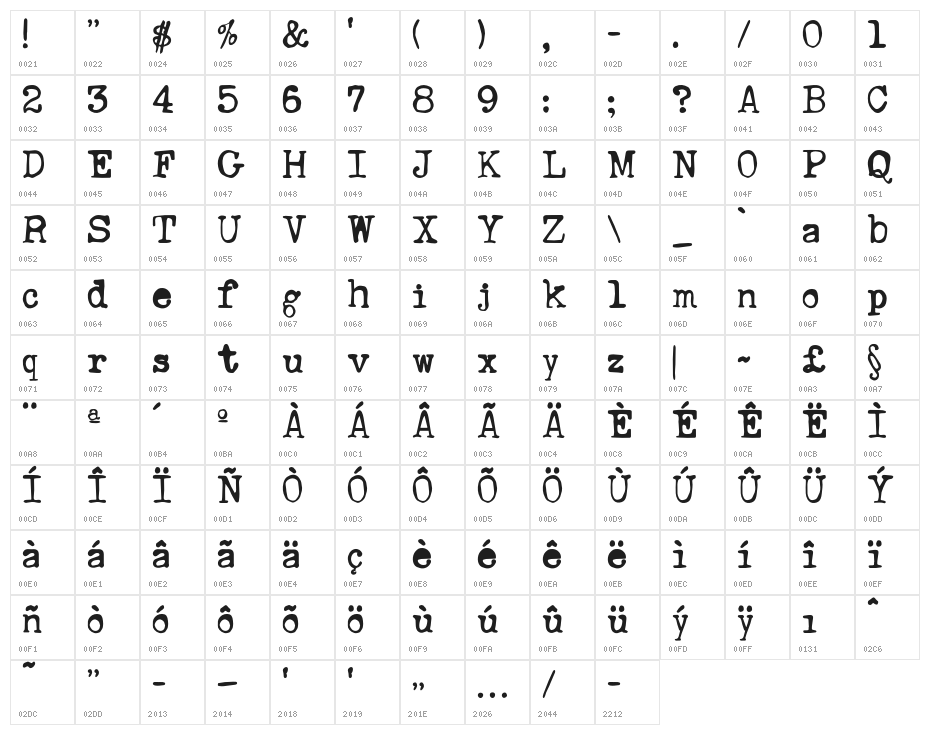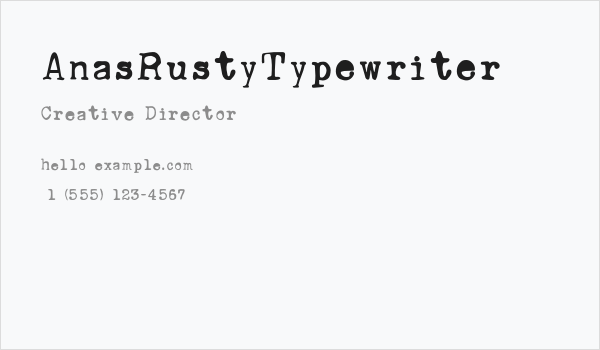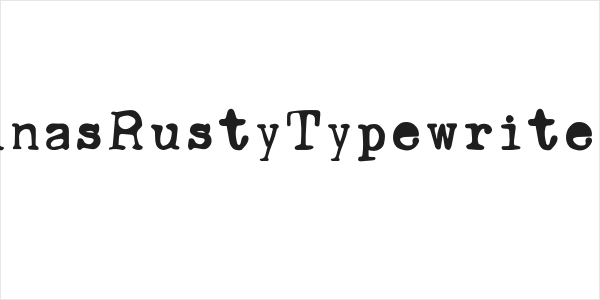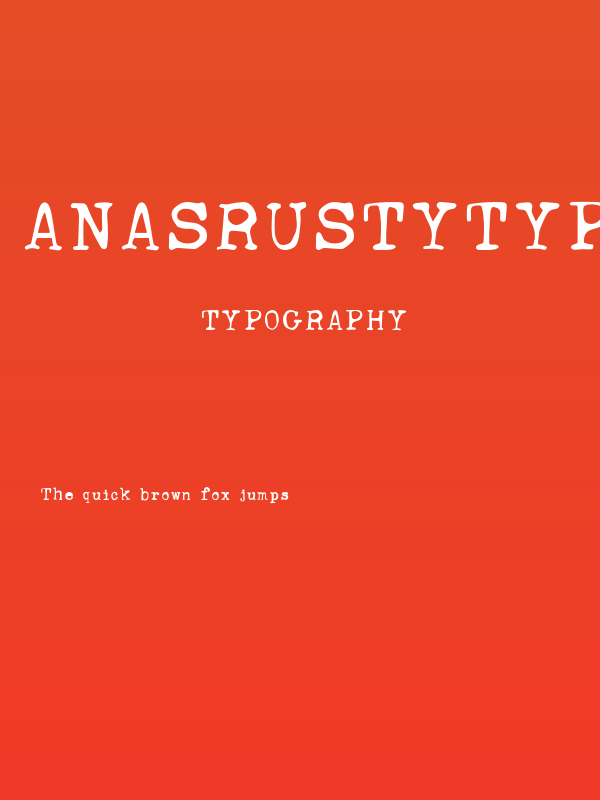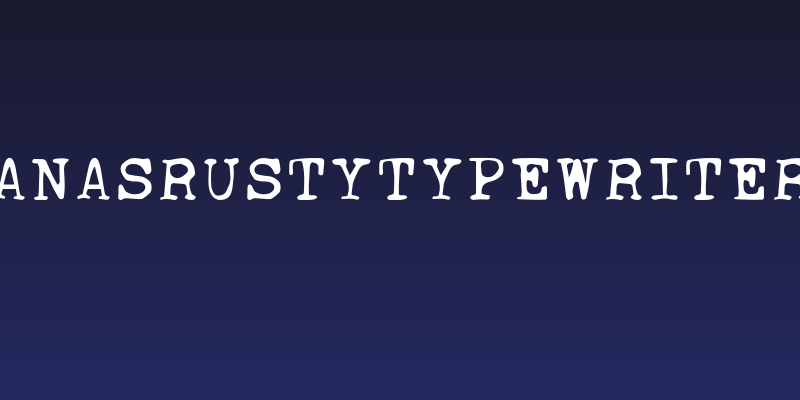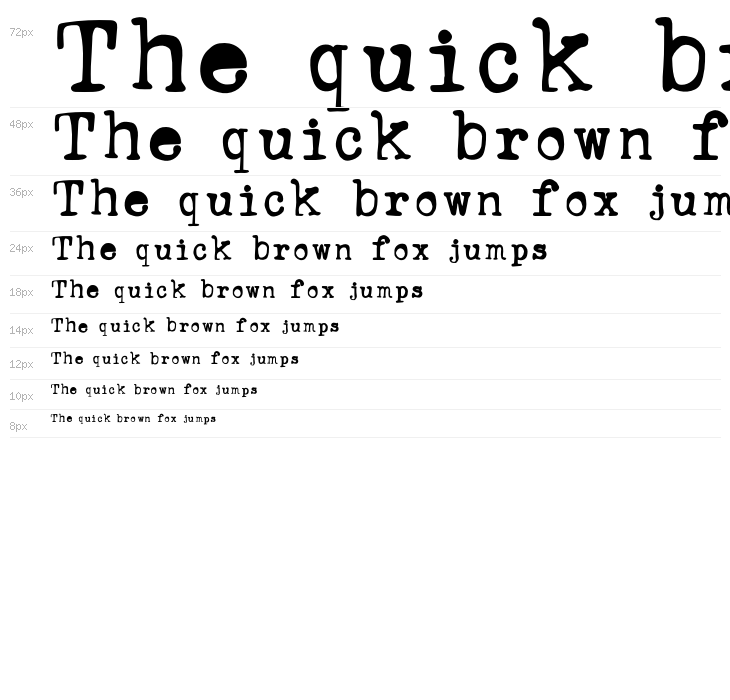
AnasRustyTypewriter Font
AnasRustyTypewriter Description
This font exudes a vintage, typewriter-inspired aesthetic with a distinctively worn and rustic appearance. Each character is uniquely imperfect, featuring irregular edges and varying stroke thickness that mimic the look of aged, mechanical type. The uppercase and lowercase letters maintain a consistent style, while the numerals and special characters add to the overall nostalgic feel. The font's charm lies in its ability to evoke a sense of history and authenticity, making it ideal for projects that require a touch of retro flair.
| Overall Style | Vintage |
| Proposed Projects | Ideal for retro-themed designs, vintage posters, historical documents, and creative projects that require an authentic, old-school typewriter look. |